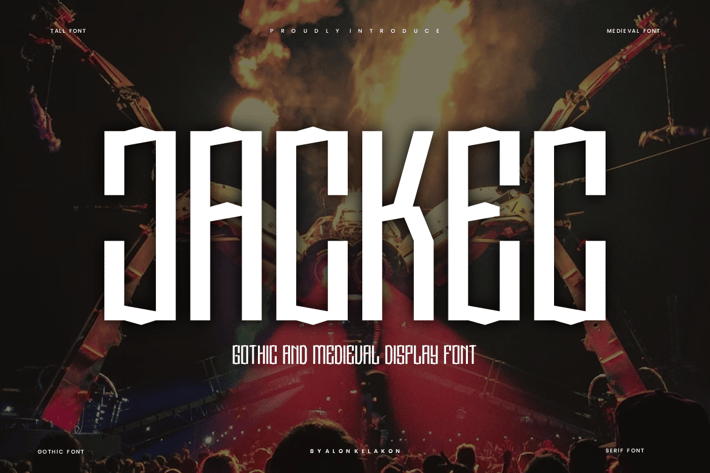
Jackec - Tall & Long Font
Jackec Font is unique . Ready to use for your design like labeling, movie sceen, poster, movie title, gigs, album covers, logos, and much more.